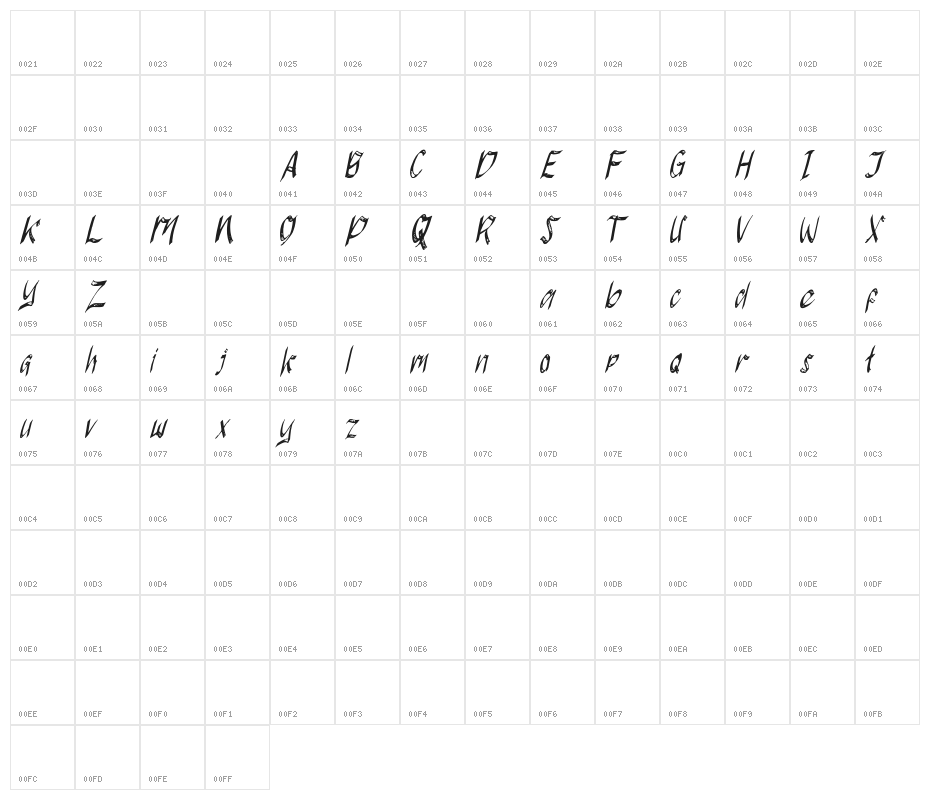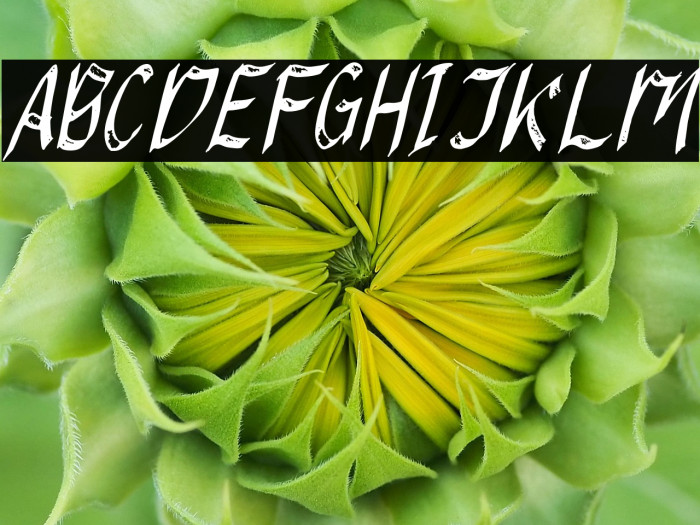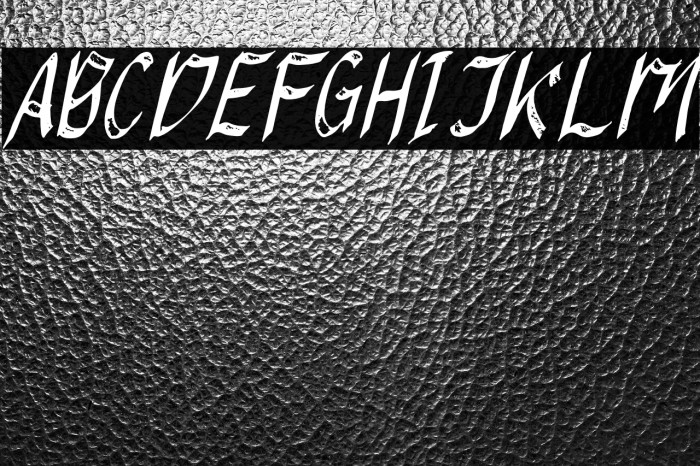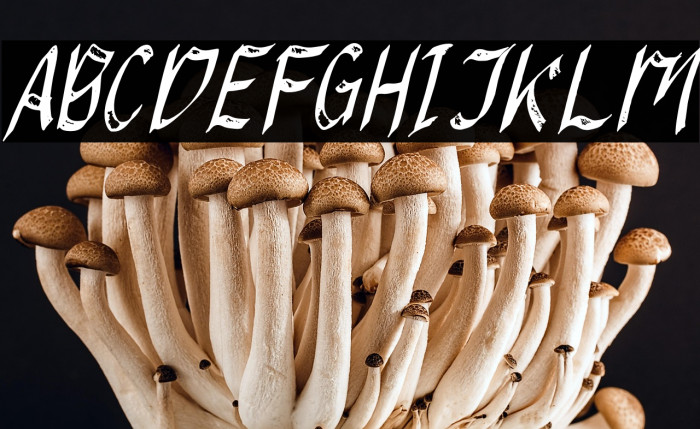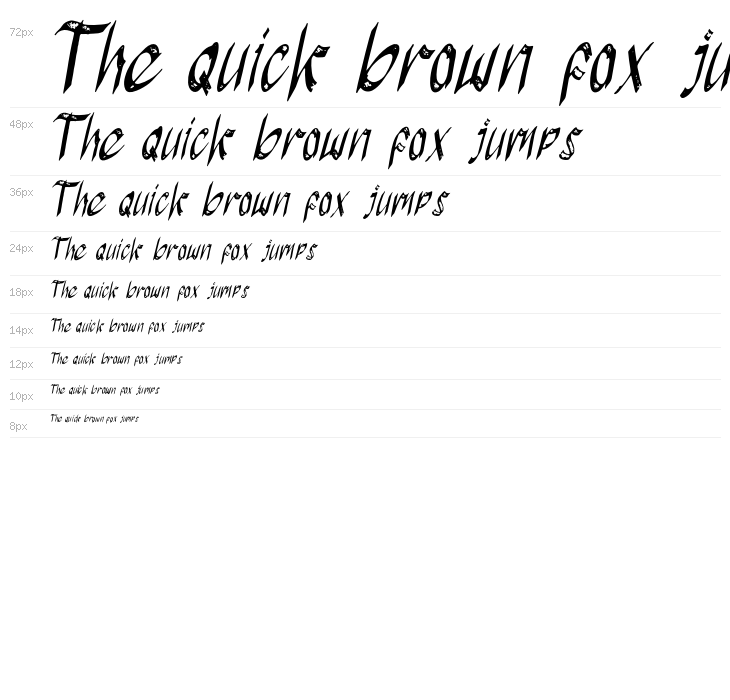
Hackwell Font
Hackwell Description
This font features a dynamic and edgy style, characterized by sharp, angular strokes and a distressed texture that gives it a grunge-like appearance. The letters are slightly slanted, adding a sense of motion and energy. The uppercase and lowercase letters maintain a consistent design, with unique cut-out patterns within each character that enhance its bold and rebellious look. The numbers and special characters follow the same aesthetic, ensuring a cohesive appearance across all glyphs. This font is perfect for projects that require a bold statement and a touch of artistic flair.
| Overall Style | Modern, Grunge |
| Proposed Projects | Ideal for music album covers, event posters, streetwear branding, and edgy graphic design projects. |